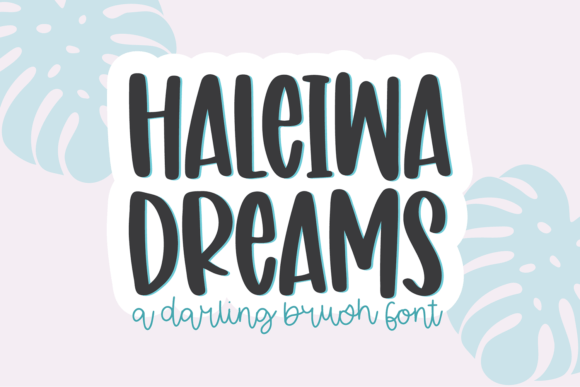
Dive into the enchanting realm of handwritten elegance with "Haleiwa Dreams," a whimsical brush font crafted by the creative minds at blushfontco. This captivating script weaves its magic, adding a touch of personal charm to your digital creations. Its versatile strokes dance across the page, like a calligrapher's ink, bringing life to your words and igniting your imagination.
"Haleiwa Dreams" is more than just font; it's an expression of your unique style and creativity. Whether you're a social media maven, a crafty connoisseur, or a passionate designer, this font will elevate your projects to new heights. Picture your Instagram feed adorned with stunning quotes, your handmade cards radiating warmth, or your invitations exuding an air of timeless elegance. The possibilities are endless!
With its inclusive character set, "Haleiwa Dreams" embraces all caps glyphs, numbers, basic punctuation marks, and international characters. It's a font that speaks your language, allowing you to communicate your message to a global audience. So, let your creativity flourish and let "Haleiwa Dreams" be your artistic brush, painting beautiful stories through the art of words.
Unlock the boundless potential of "Haleiwa Dreams" today and elevate your creative endeavors to new heights. Experience the joy of crafting personalized designs that captivate and inspire. Let this font be your faithful companion, guiding your imagination on a journey of endless possibilities.